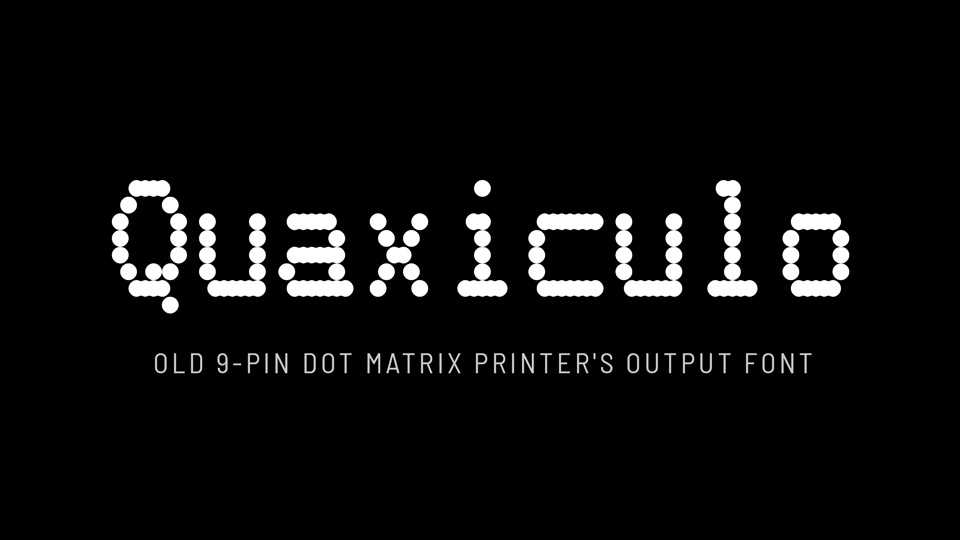
Download Quaxiculo font, a display typeface inspired by the old dot-matrix printers. Each character of Quaxiculo is rendered in a matrix that’s nine dots high simulating the output of 1980’s and 1990’s era dot matrix printers.
Designer: J Hudson